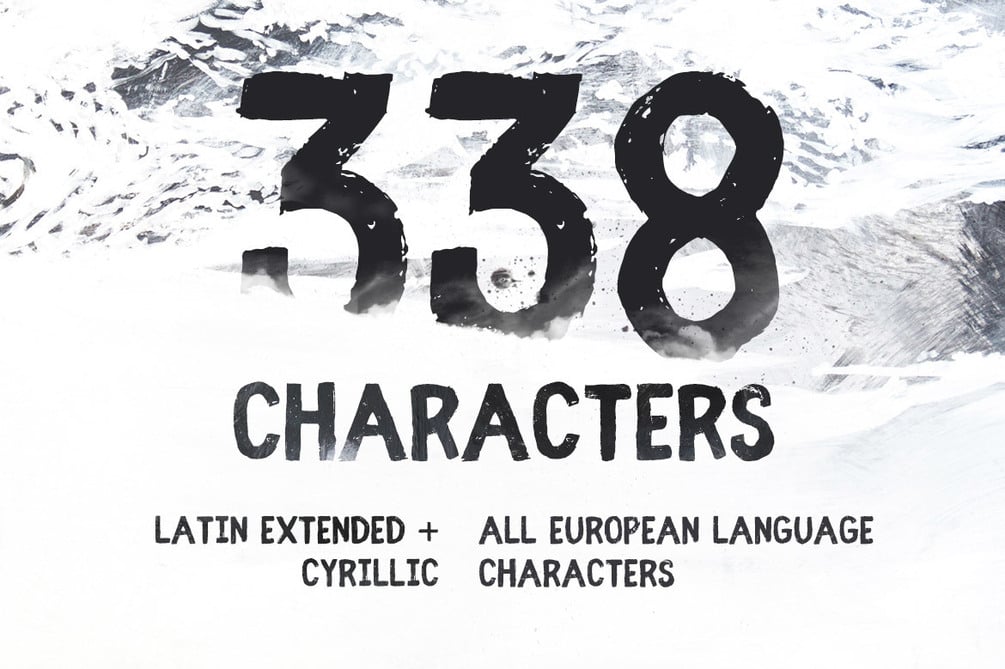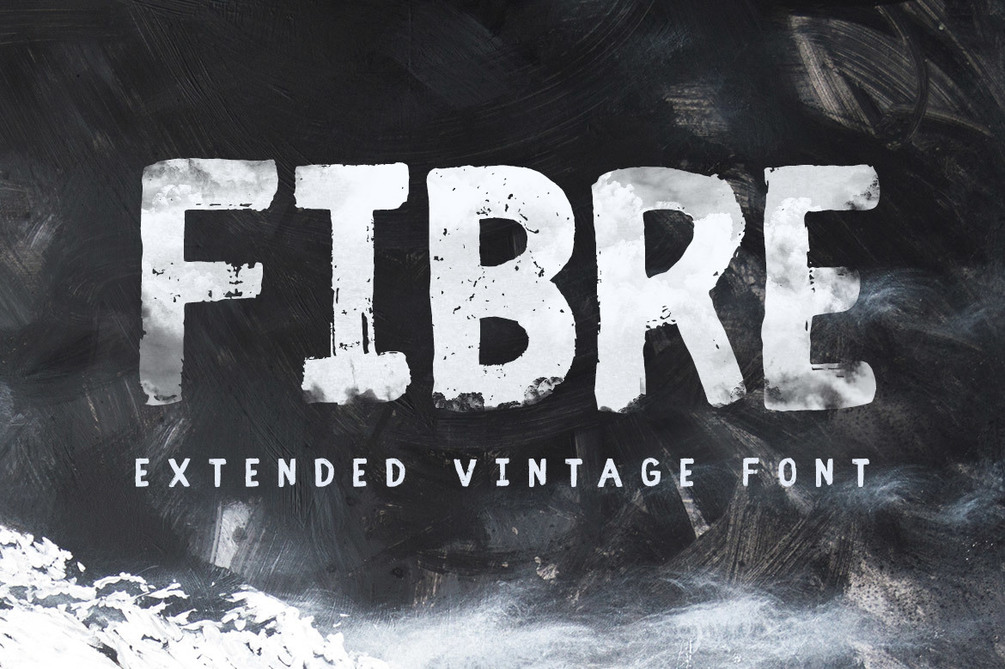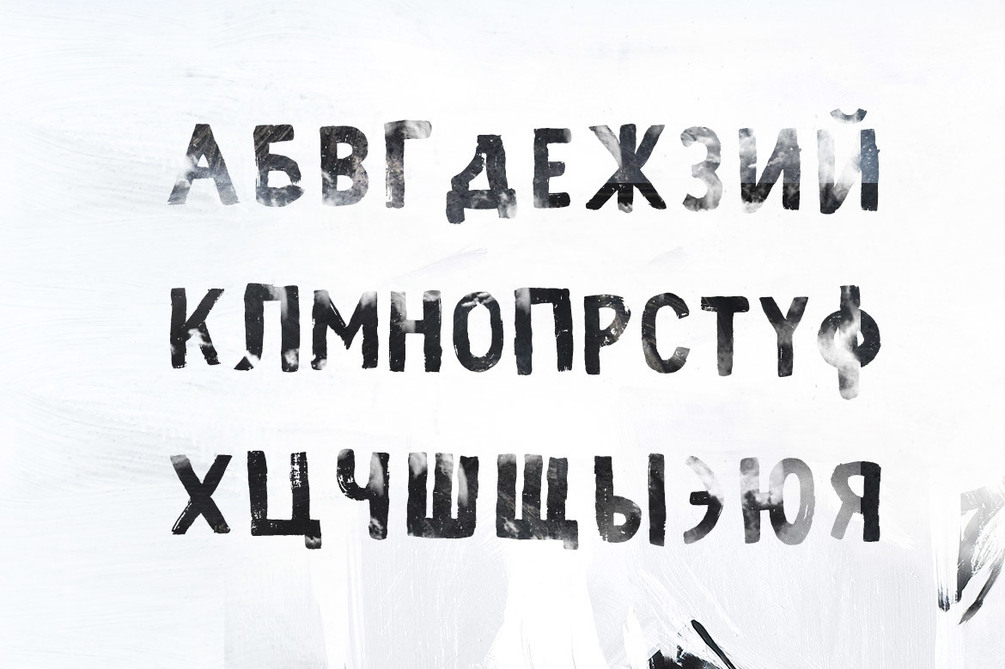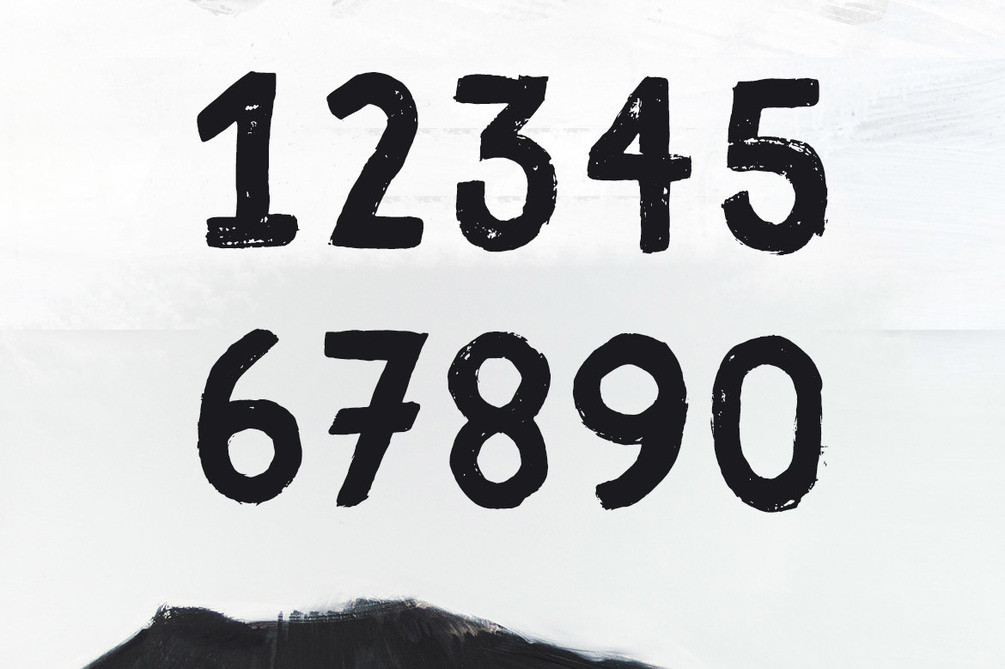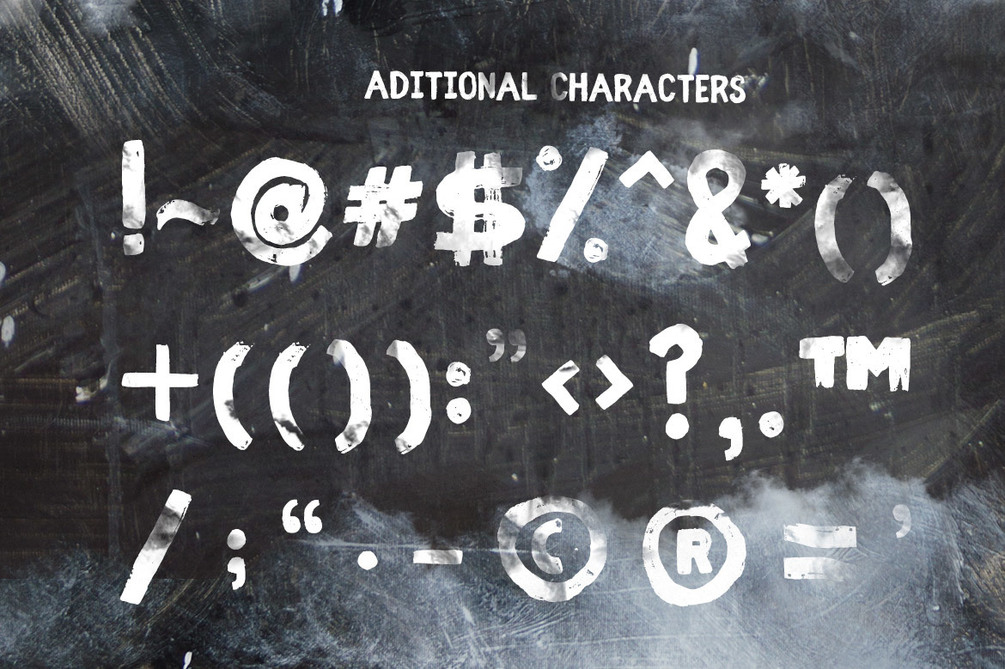
Fibre Extended Font
Fibre extended is the pro version of the previous font - Fibre. It has been updated and now containsso much more leters , cyrillic letters and EU country based glyphs. About 340 glyphs make the new and more fresh handmade typeface, all the basic characters are unique and not one has the same noise. The kerning and font metricks are designed to suit the best reading experience.